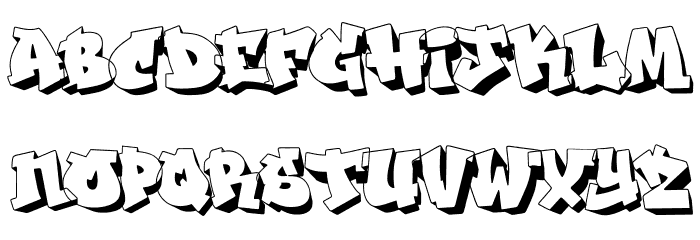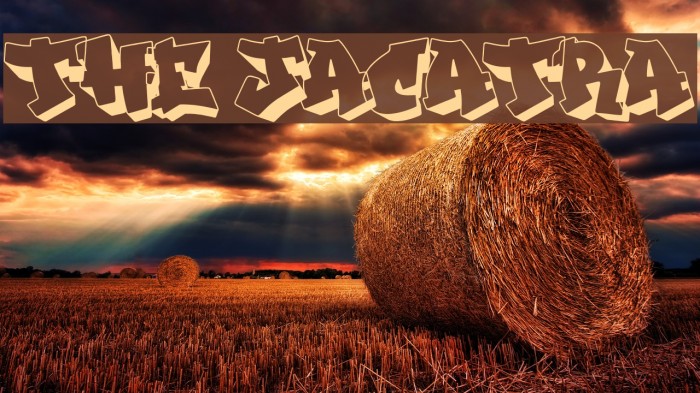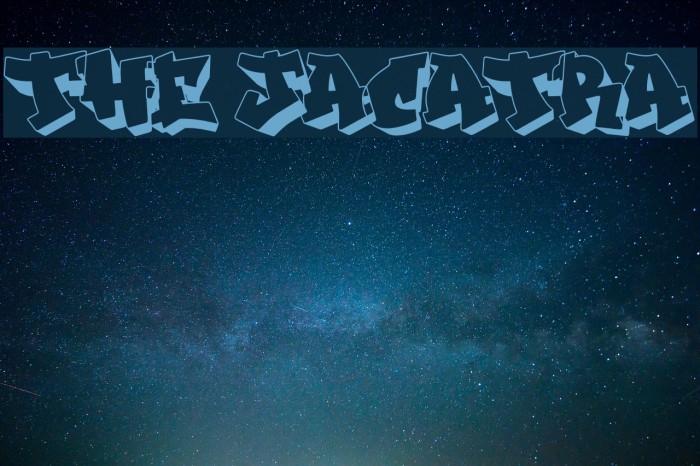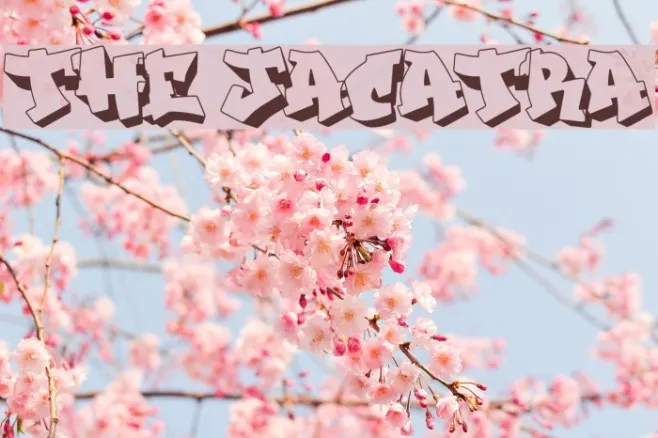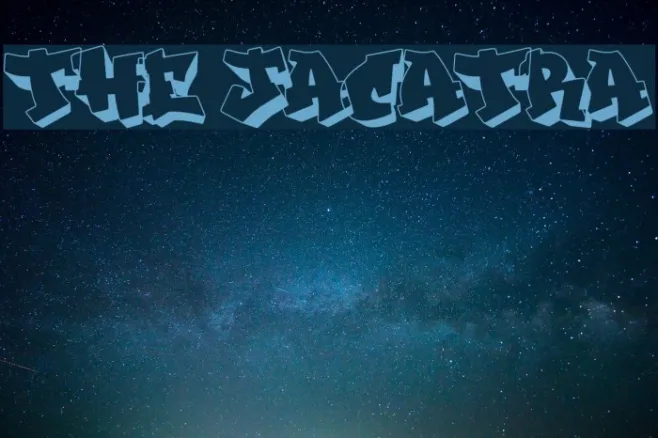
THE JACATRA Font
This font features a bold, graffiti-inspired style with a strong urban influence. The letters are characterized by thick, blocky shapes with a three-dimensional effect, created by a shadow that gives depth to each character. The uppercase letters are particularly striking, with exaggerated angles and a playful, rebellious flair. This font is designed to capture attention and convey a sense of energy and movement, making it ideal for projects that require a dynamic and youthful aesthetic.
A bold, graffiti-inspired font with a three-dimensional effect and urban flair.
- Proposed Projects: Perfect for street art designs, urban-themed posters, music album covers, and youth-oriented branding.
- Overall Style: Urban, Energetic, Playful